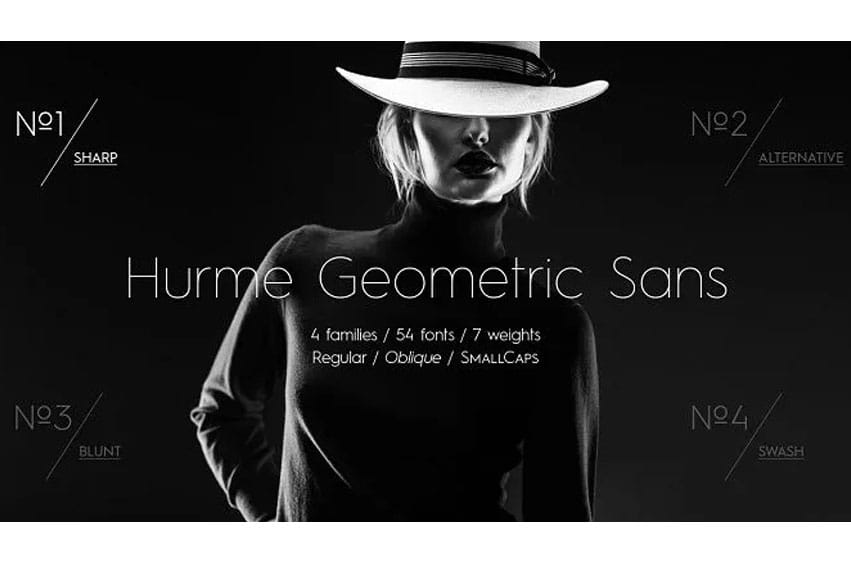
Hurme Geometric Sans Font No.1 & 2 have seven weights each; both weight sets come with Small Caps and Obliques throughout.
Character images – other characters alongside Opentype features make up an adaptable family which can meet specific needs. Hurme Geometric Sans Nos.1 and No.2 act like an interchangeable pair of fonts, yet have distinct sets of characters which, along with Opentype features, set each of them apart.